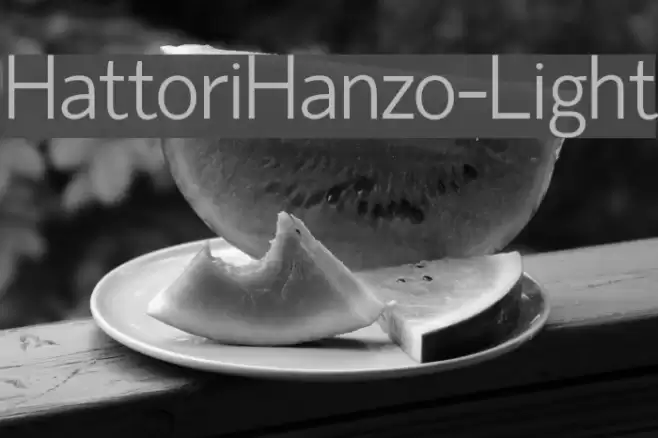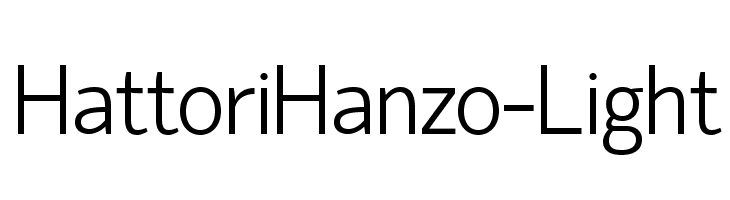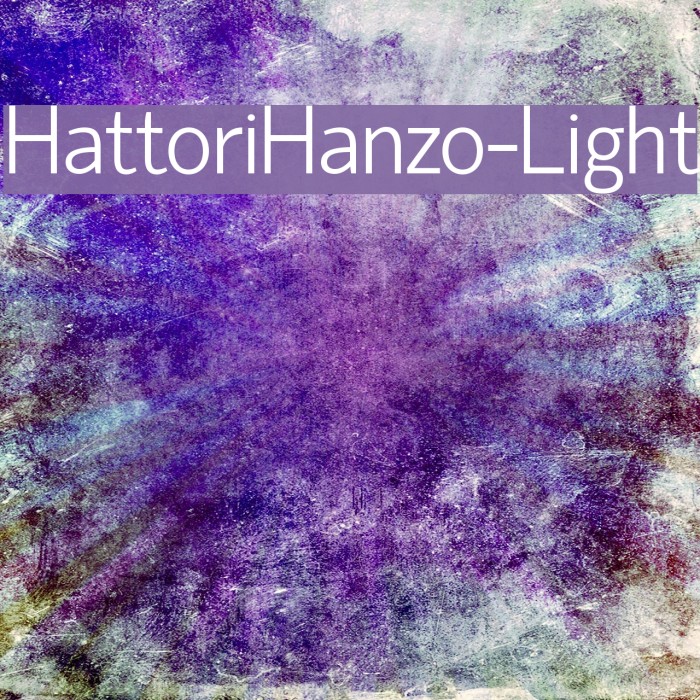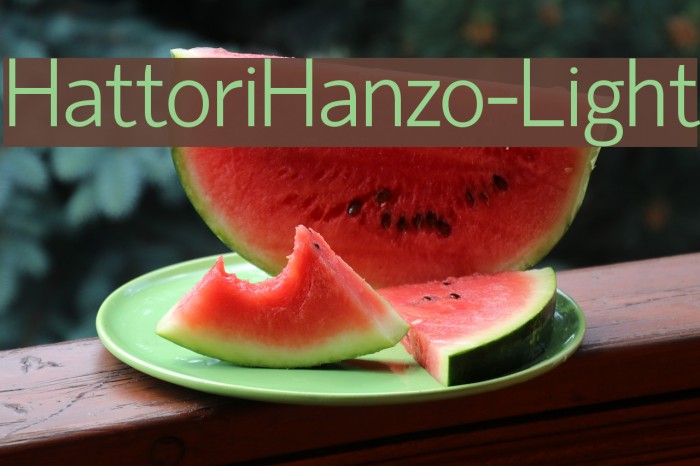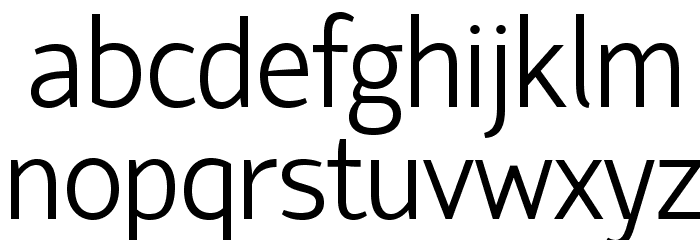
HattoriHanzo-Light Font
HattoriHanzo-Light Description
This font features a clean and modern sans-serif design with a light weight, making it ideal for minimalist and contemporary projects. The characters are evenly spaced with a normal width, providing excellent readability. The strokes are consistent and smooth, with low contrast, which enhances its legibility across various sizes. The uppercase and lowercase letters are well-proportioned, and the numerals are clear and distinct. Special characters are included, maintaining the font's cohesive style. Its simplicity and elegance make it versatile for a wide range of applications.
A modern, light sans-serif font with excellent readability and low contrast from Uncategorized fonts.
- Proposed Projects: Ideal for web design, branding, corporate materials, and editorial layouts.